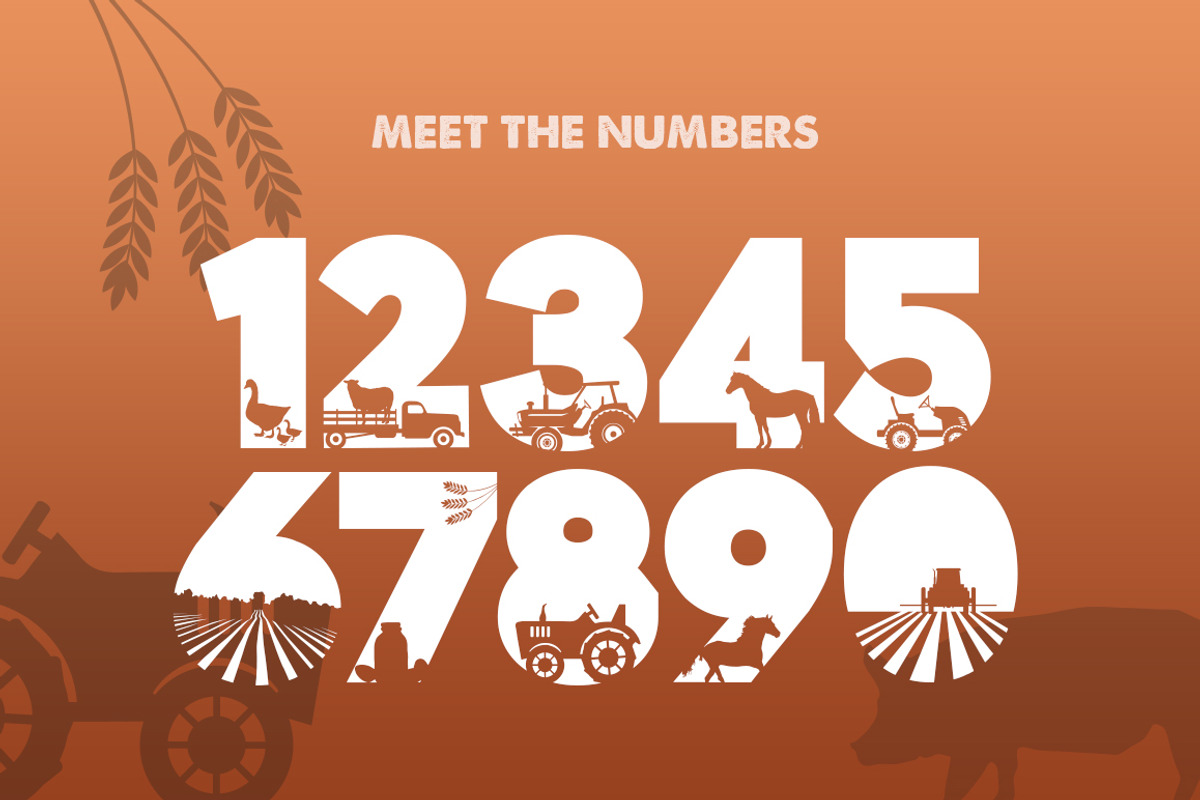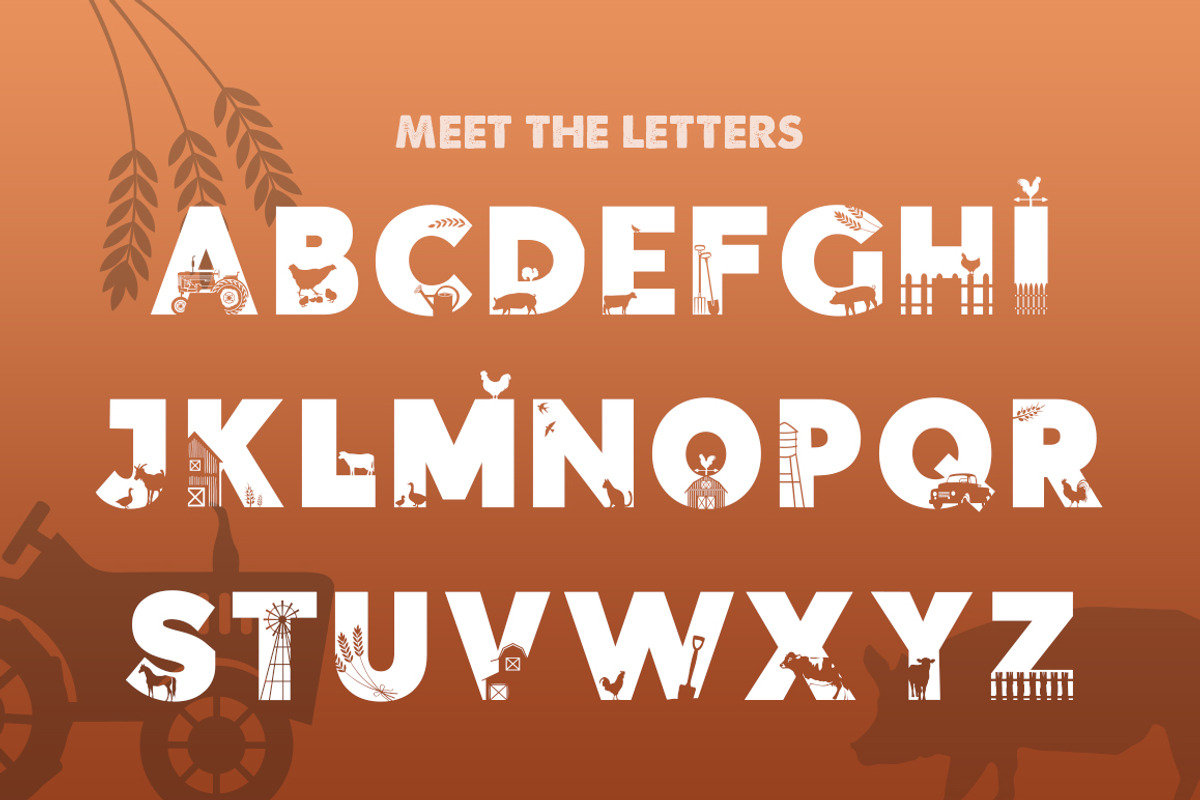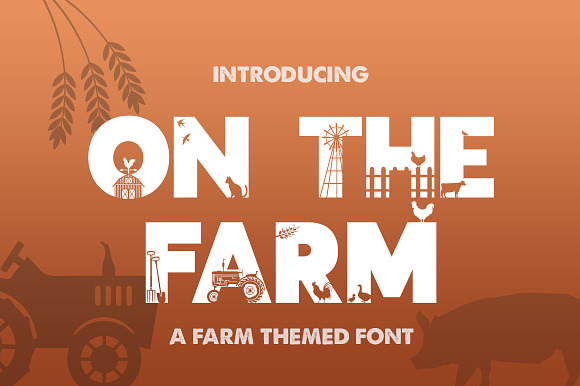
On the Farm Silhouette Font
Why On the Farm Silhouette Font is worth a look
On the Farm Silhouette Font by Salt & Pepper Designs fits naturally into Branding, posters, packaging, typography.